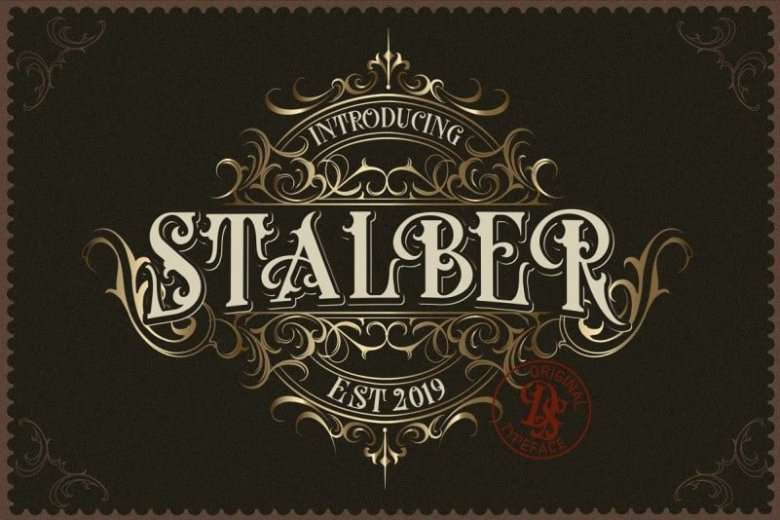
Stalber Font
Stalber Blackletter Font is a modern blackletter typeface created by dansdesign with a vintage feel. This font is made with references to various letters that I combine and design with my style.
STALBER FONT + Extra Ornament are great and usefull for product logo, poster title, headline, packaging, badge, wedding card logo, clothing brand logo,Vintage design and much more.